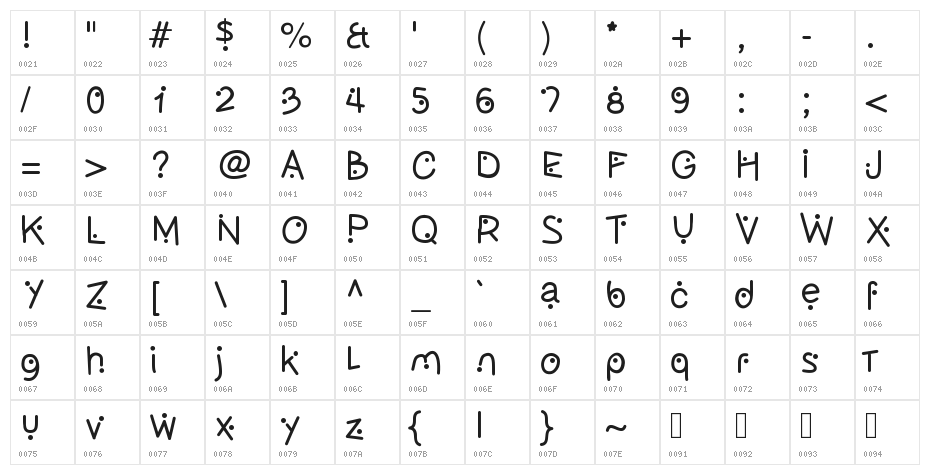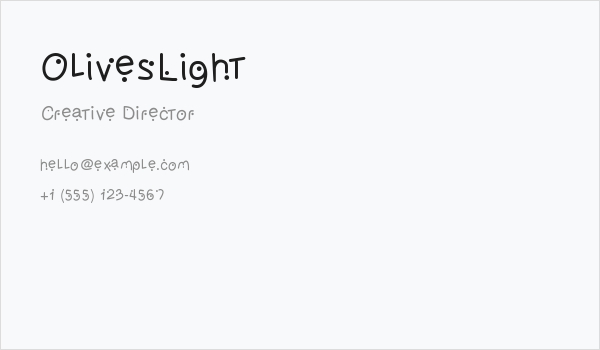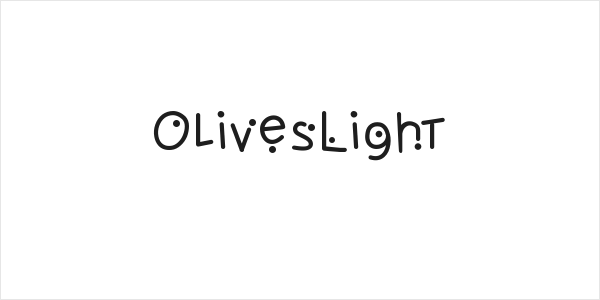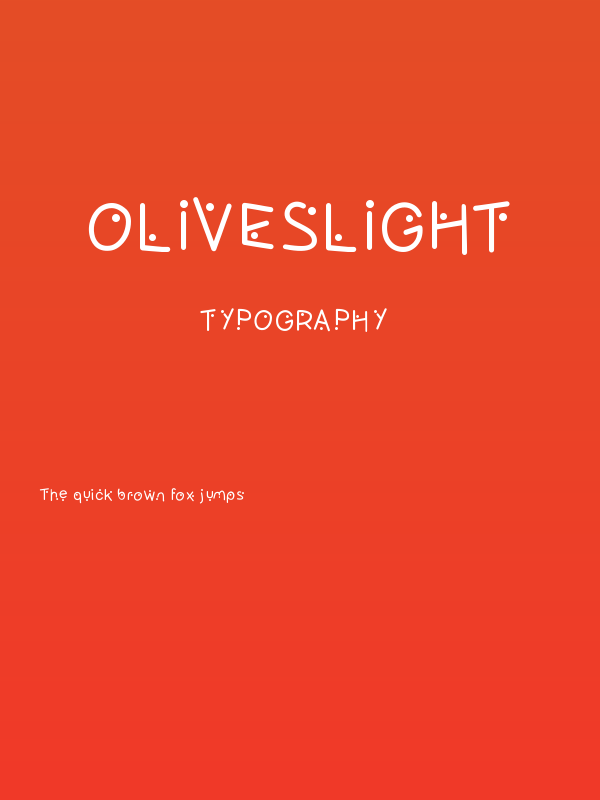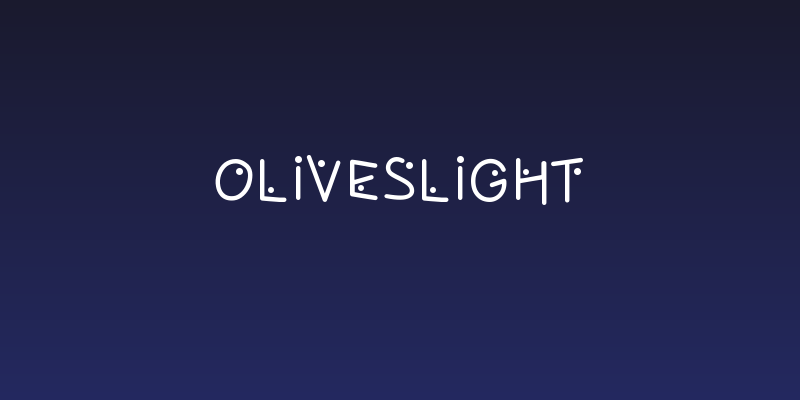
OlivesLight Font
OlivesLight Description
This playful and whimsical font features a unique design with rounded, bubbly characters that incorporate small circular accents, giving it a lively and cheerful appearance. The letters are evenly spaced and maintain a consistent stroke width, contributing to a clean and approachable look. The font's distinctive style is characterized by its rounded terminals and the incorporation of dots within the letterforms, adding a sense of fun and creativity. It is well-suited for projects that aim to convey a sense of joy and friendliness, making it ideal for children's books, playful branding, or any design that requires a touch of whimsy.
| Proposed Projects | Children's books, playful branding, greeting cards, and creative posters. |